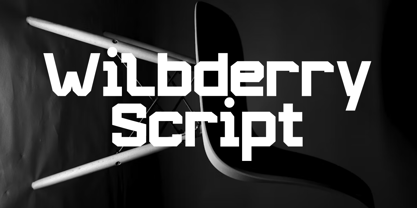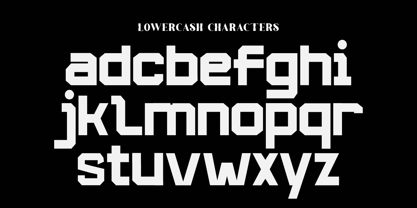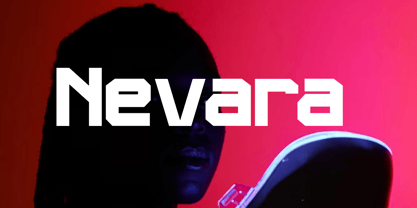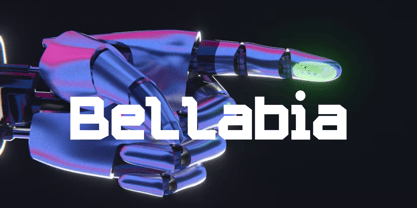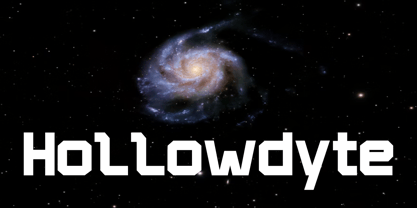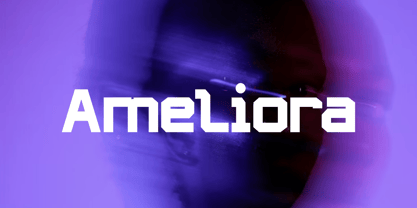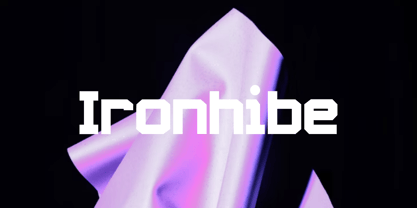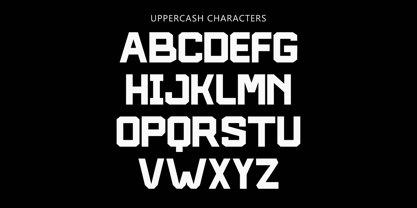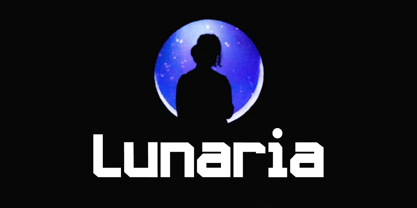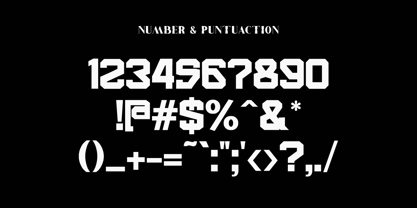
Frontally
The Frontally Font Family was designed by Ta Siyo and published by Letternesia studio. Frontally contains 2 styles and family package options. More about this family
Frontally is a bold and confident typeface designed to make a strong first impression. With clean lines, solid structure, and contemporary styling, this font is perfect for projects that demand clarity, impact, and a touch of modern sophistication.
Its sharp geometry and balanced proportions make Frontally versatile across a range of uses—from striking headlines and posters to branding, packaging, and digital interfaces. Whether you’re designing for tech, fashion, or editorial, Frontally keeps your message front and center.